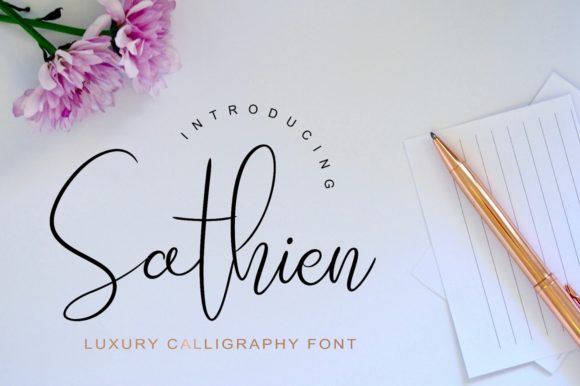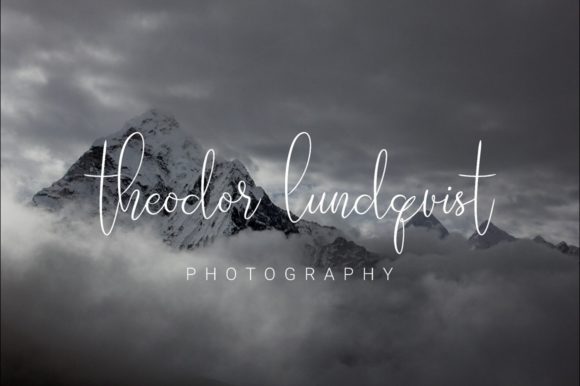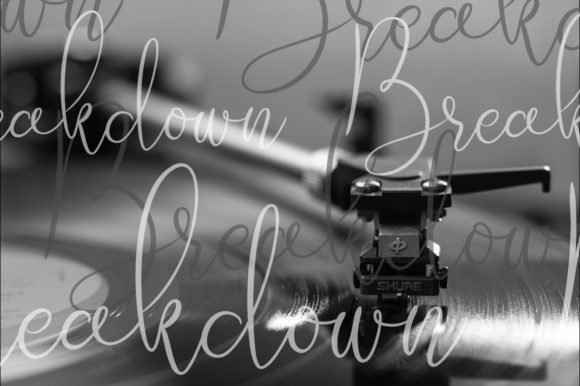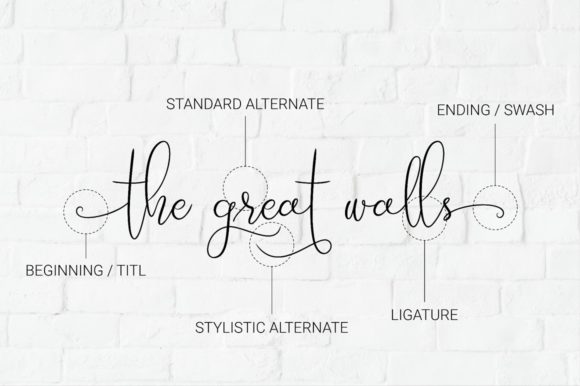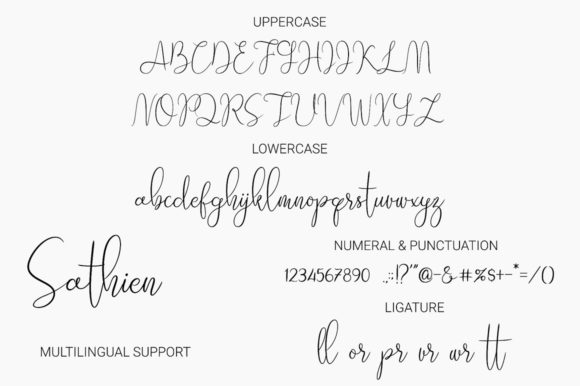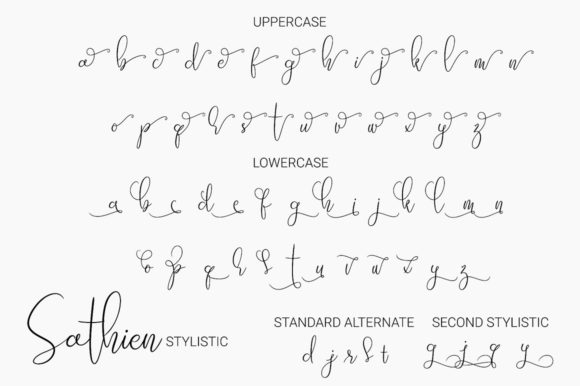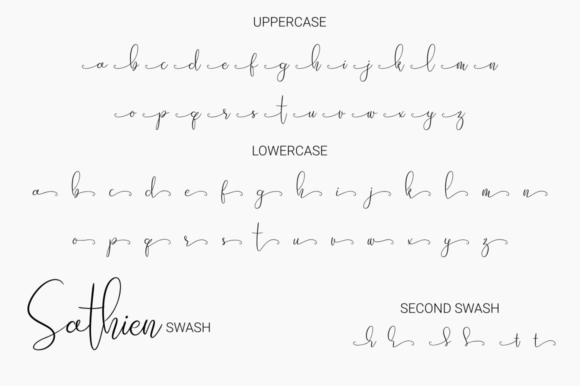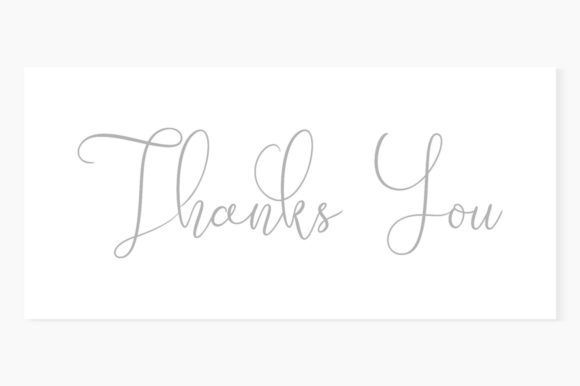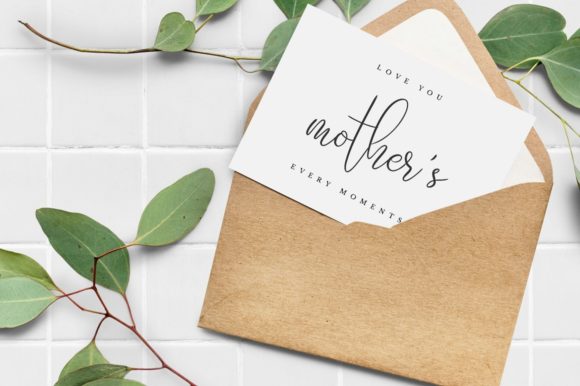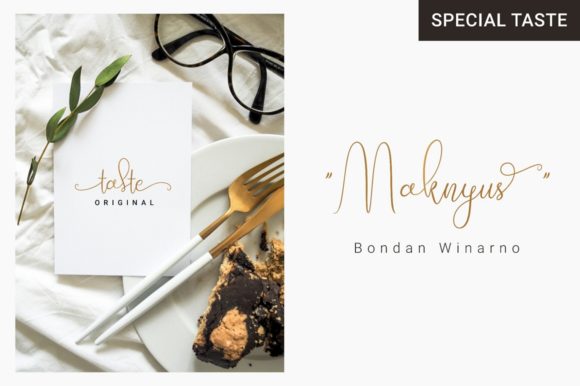
Sathien Font
About Sathien Font
The Sathien is a luxurious calligraphy with thin lines. It has an elegant feel and is great for upscale and chic designs.
It’s perfect for cards, branding, logos, ads or photography watermarks.